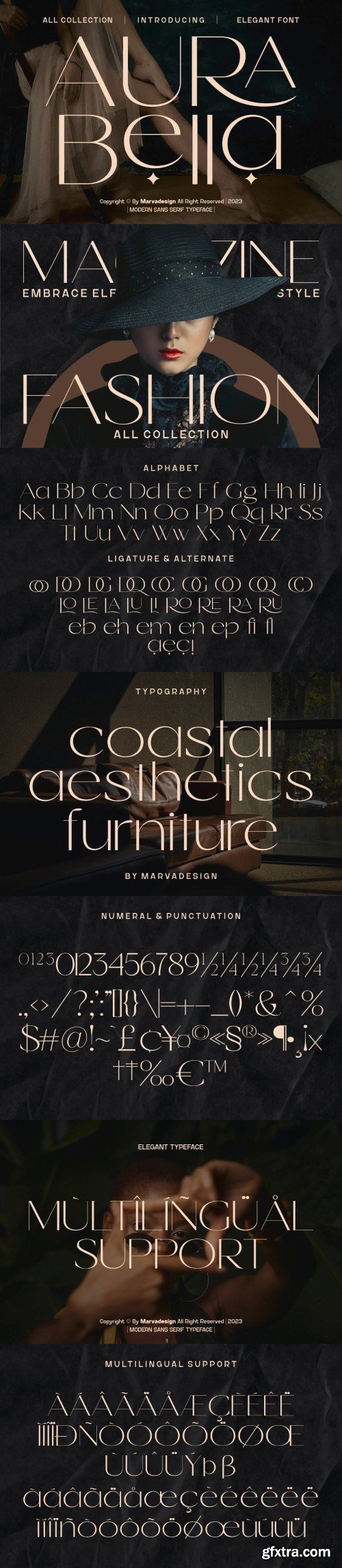
阿aura bella - 一种优雅的无衬线字体
Introducing our new product Aura Bella Font - Modern Font is a bold and authentic display font. The font is suitable for any branding project like logo, Template Design, Product and many more. outstanding in a wide range of contexts.